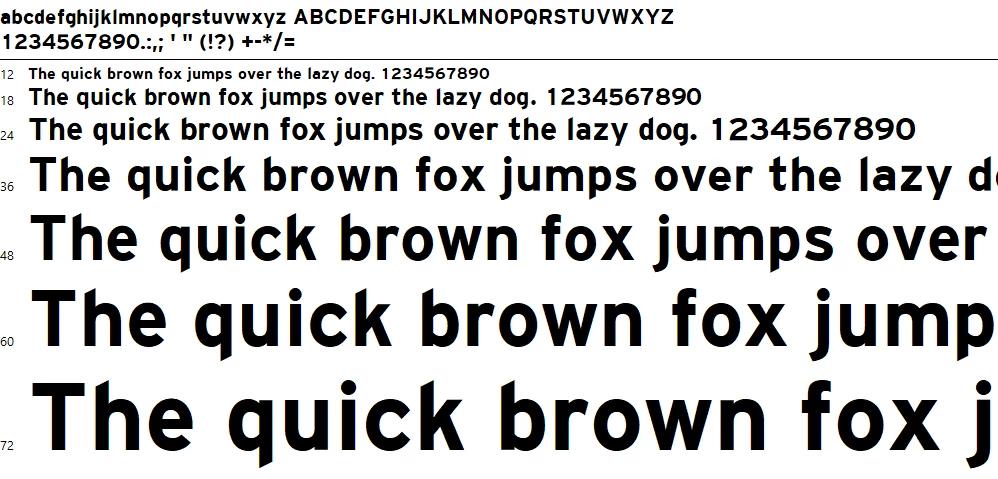
Interstate is a Sans-serif typeface designed by Tobias Frere-Jones in the period 1993–1999 and licensed by Font Bureau. The typeface is predicated on type variety E with the FHWA Series fonts, a signage alphabet drawn for the United States of America Federal Highway Administration by Dr. Theodore W. Forbes in 1949.
The font is used by a number of large organizations in their logotype and branding materials. Notable examples include Citigroup (Citibank), Sesame Street, and Sainsbury’s supermarkets, as well as recent signage for Southwest Airlines, Invesco, UK rail company c2c, Ealing / Hammersmith / West London College, Trinity College, Lamborghini, Cognizant, SoundCloud, and CISV. It is also used for the logo of the Spanish social-democratic party PSOE.
As the font has a eye-catchy typeface, it is good for almost every section you need.
- Designing Work: Interstate font is compatible with every type of designing work. This font is also usable for cards, leaflets, newspapers (online/offline), presentations, webpages, blogs, book covers, social media posts, advertisements, product designs, posters, and many more.
- Headline: For the Headlines and Text, Interstate font is very good to use. You can utilize its couple of formats according to requirements.
- Official work or Documentation: The font has the look to use in the official work and documentation.
- Logos: You can design your logos with it.
- Websites: I have seen various websites use this font.
| Style | Sans-Serif. |
| Designer | Tobias Frere-Jones. |
What type of font is Interstate Font?
Ans: Interstate is a Sans-serif typeface designed by Tobias Frere-Jones.